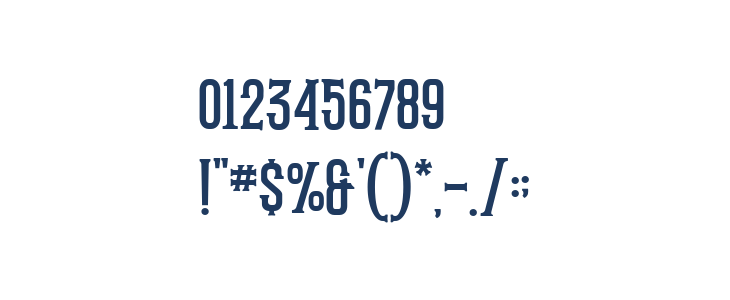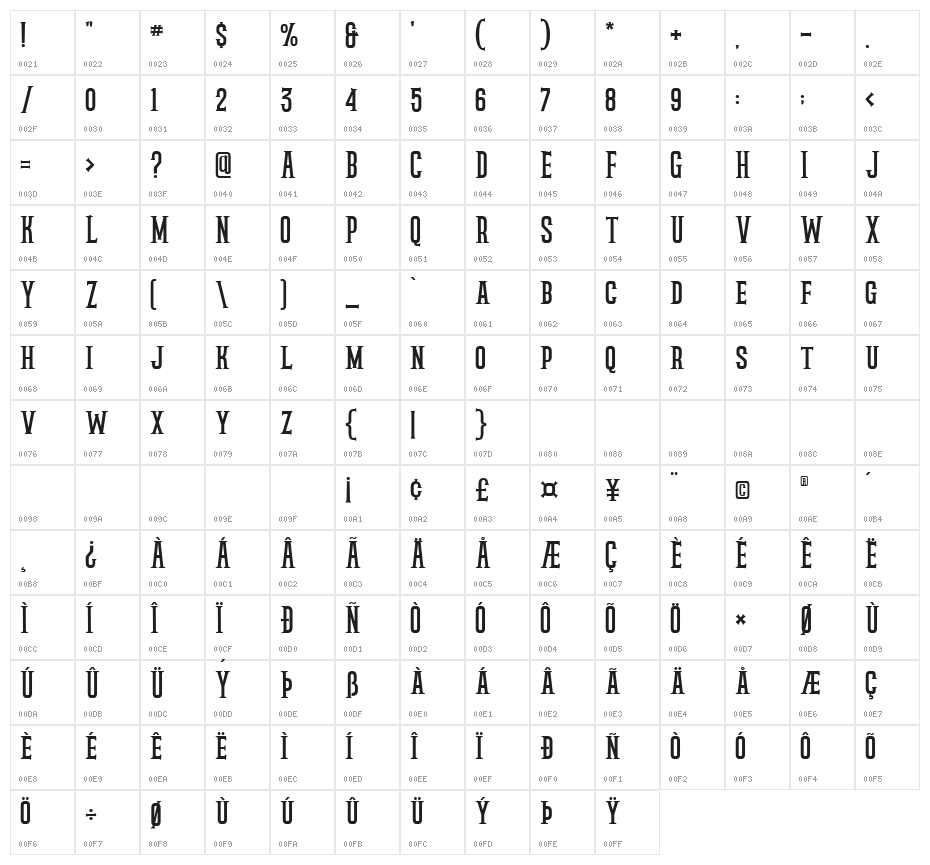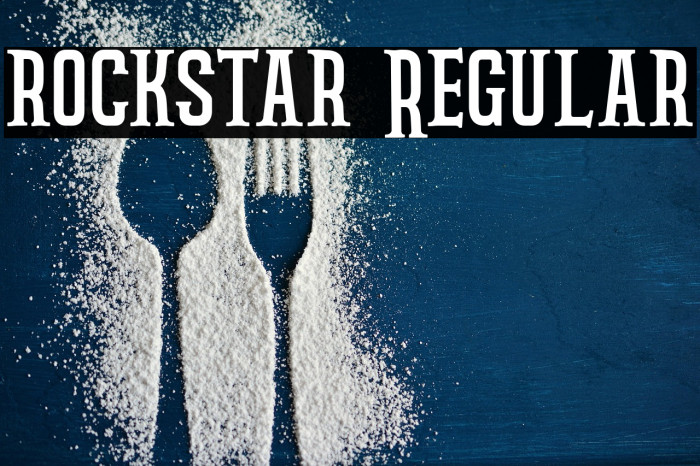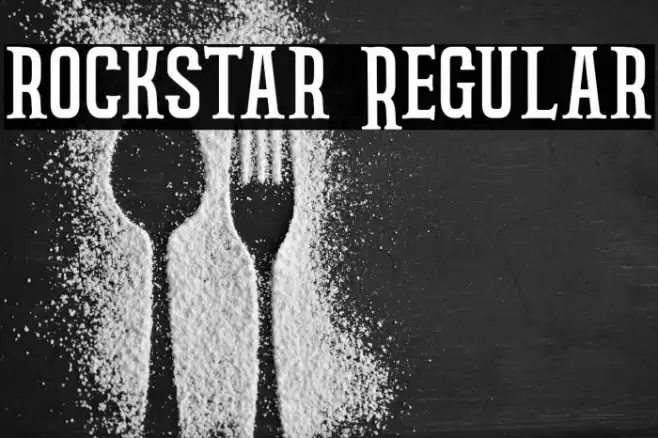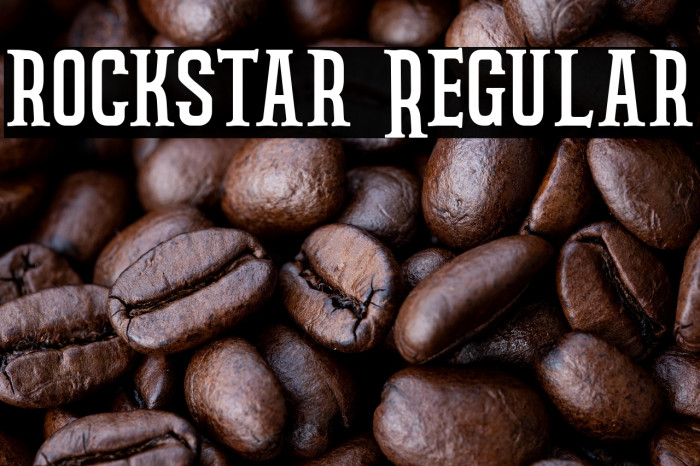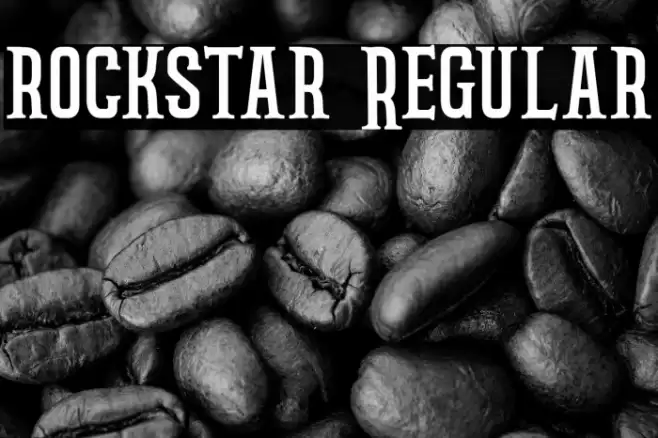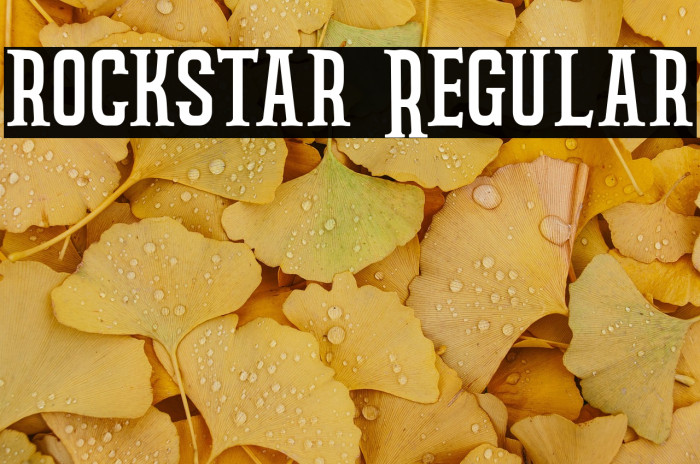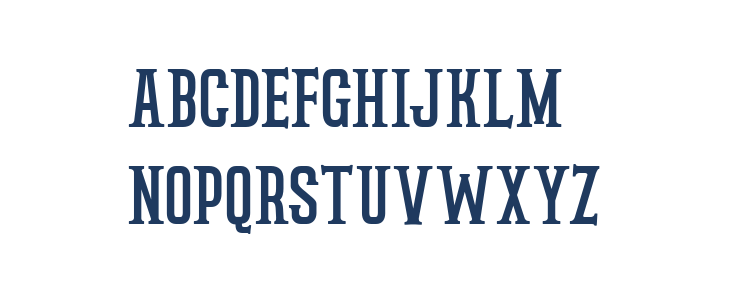
rockstar Regular Font
rockstar Regular Description
This font features a bold and impactful design with strong, elongated serifs that give it a commanding presence. The uppercase letters are tall and narrow, creating a sense of height and elegance. The lowercase letters maintain a consistent style, complementing the uppercase with a slightly condensed form. Numbers are clear and legible, matching the overall aesthetic. Special characters are distinct and well-integrated, ensuring versatility in various design applications. The font's boldness and unique style make it suitable for attention-grabbing headlines and titles.
| Proposed Projects | Ideal for posters, branding, magazine covers, and any project requiring a strong visual impact. |